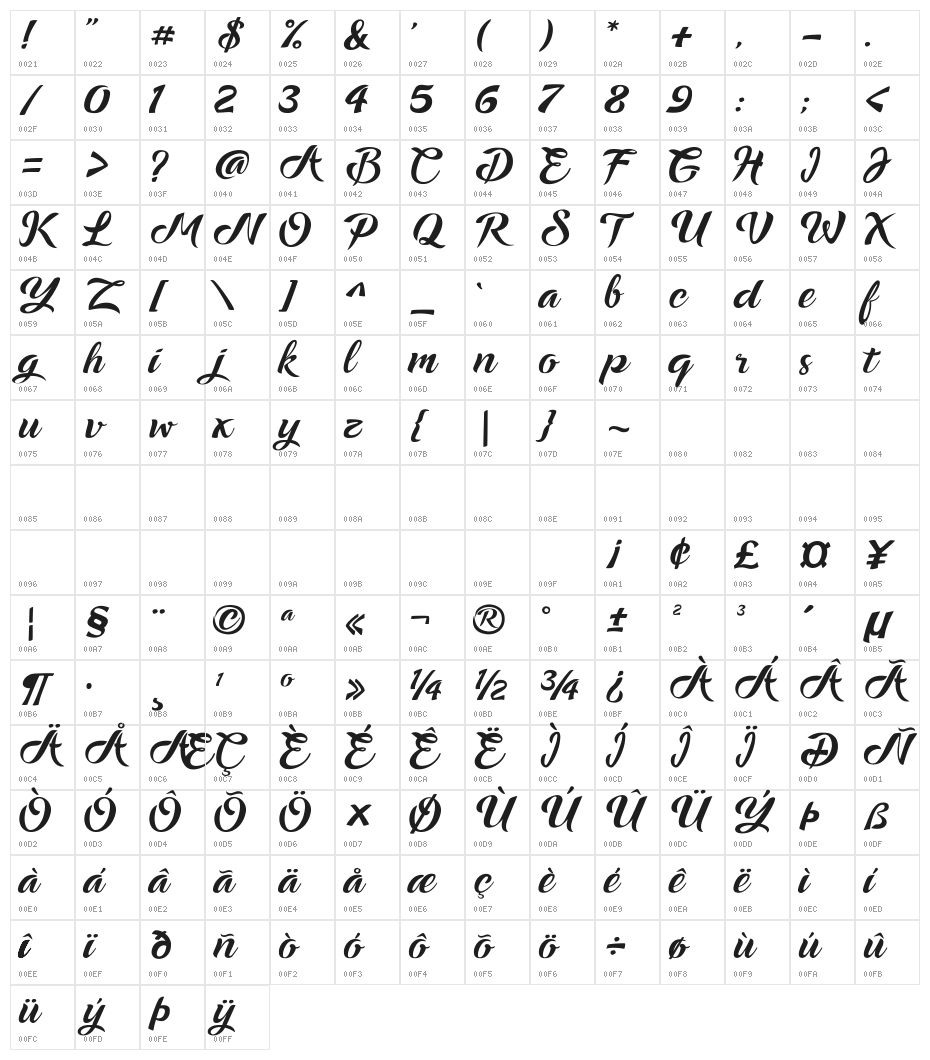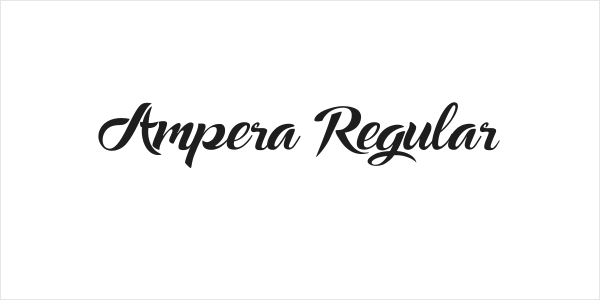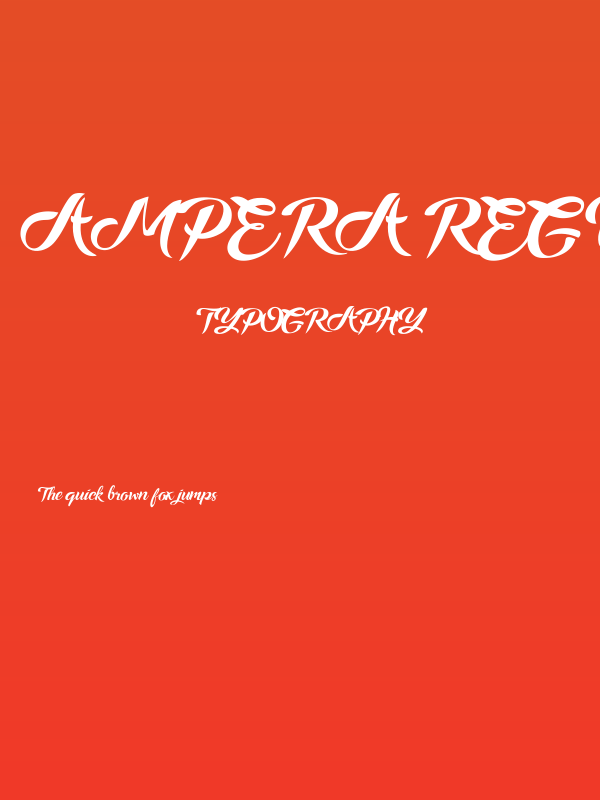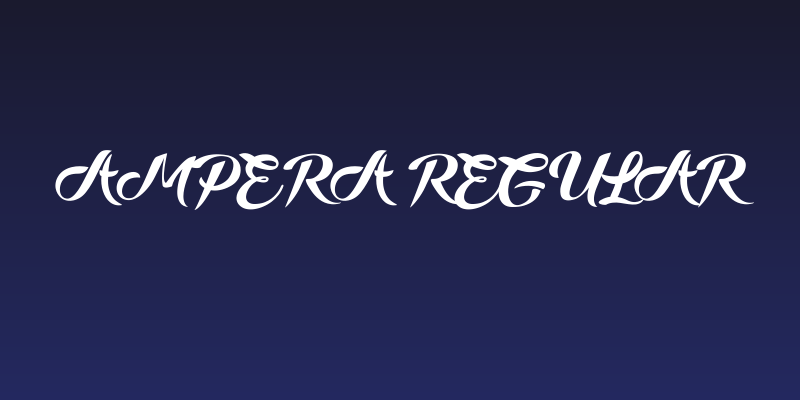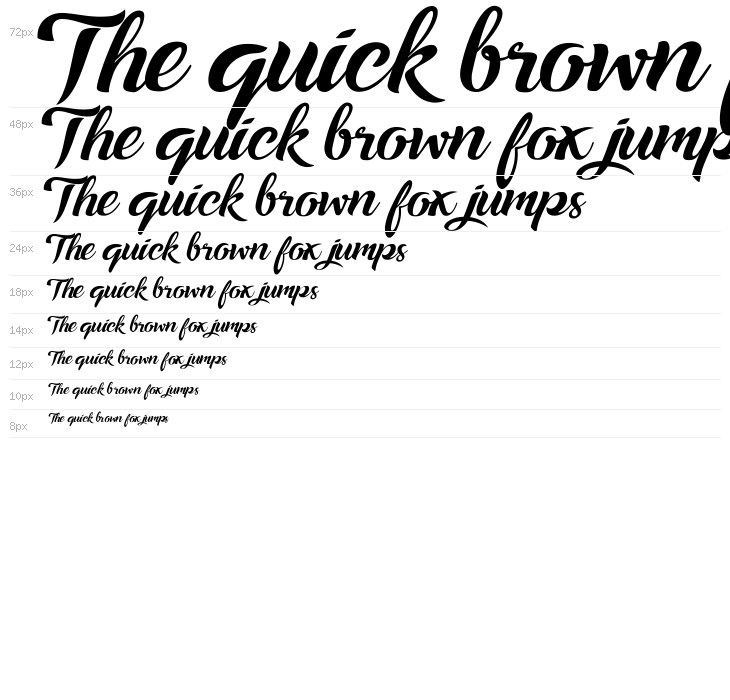
Ampera Regular Font
Ampera Regular Description
This font features a bold and flowing script style, characterized by its elegant and dynamic curves. The uppercase letters exhibit a sense of grandeur with their sweeping lines and intricate loops, while the lowercase letters maintain a cohesive and fluid appearance. The numerals are distinct and bold, complementing the overall aesthetic. Special characters are crafted with the same attention to detail, ensuring consistency throughout. The font's design exudes a sense of sophistication and creativity, making it suitable for a variety of artistic applications.
| Proposed Projects | Ideal for branding, invitations, greeting cards, and artistic projects requiring a touch of elegance. |